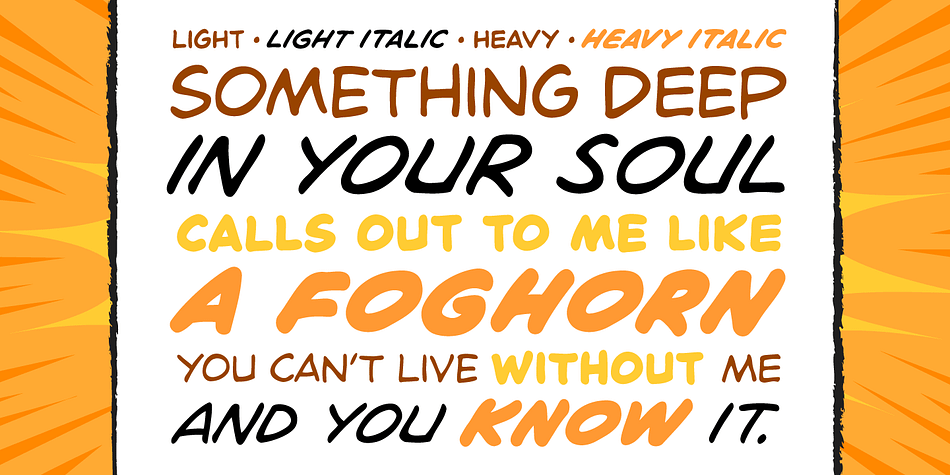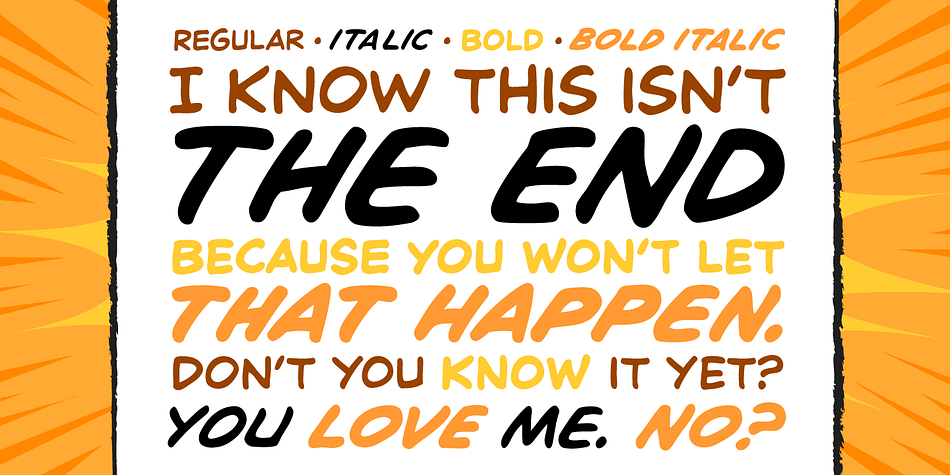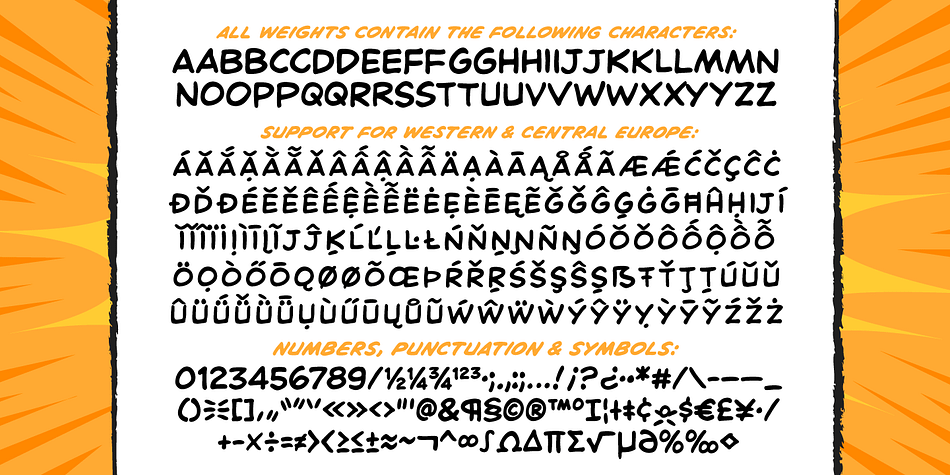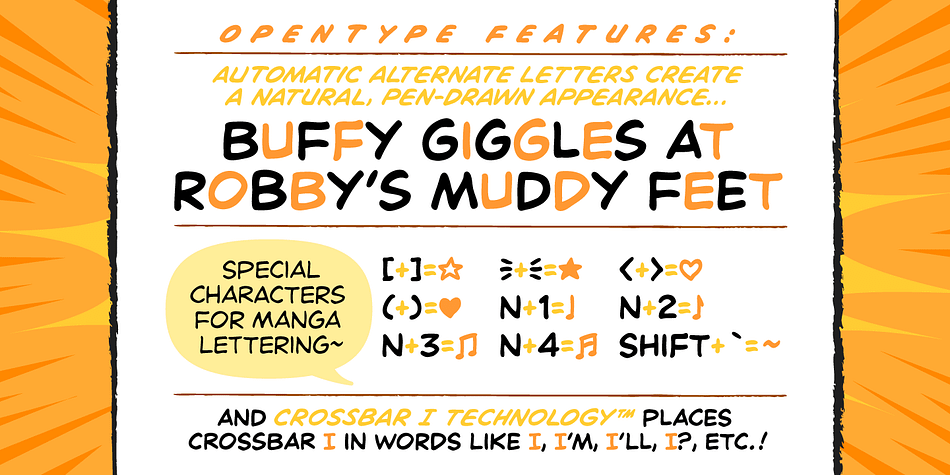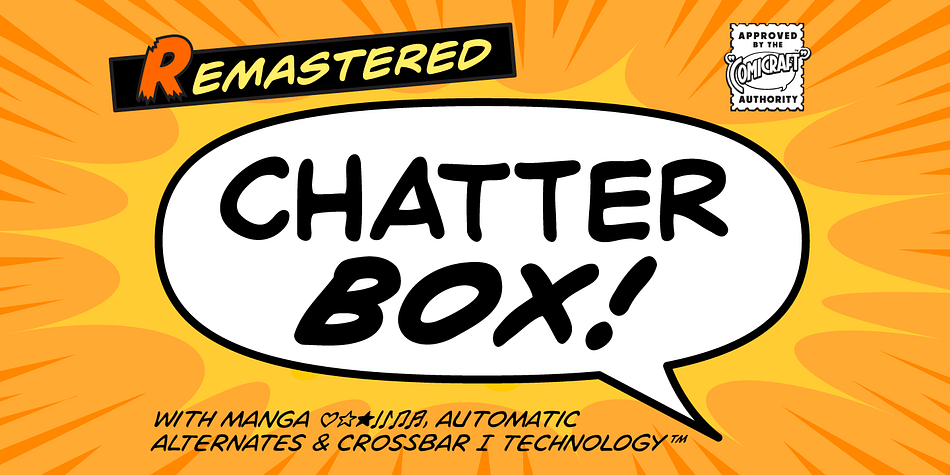
Designed by John Roshell, Chatterbox is a comic and hand display font family. This typeface has three styles and was published by Comicraft.
Have you seen that new font from Comicraft, its lovely isnt it? all soft and spongy it fair warms the cockles of me heart. Mrs Robinson at number forty three she has one she got it down at the store on the corner, you know the Indian convenience, open all night. my Albert gets his Heineken down there late of an evening, and you know what I saw all manner of strange people down there last week, super heroes I think they were! Blimey!